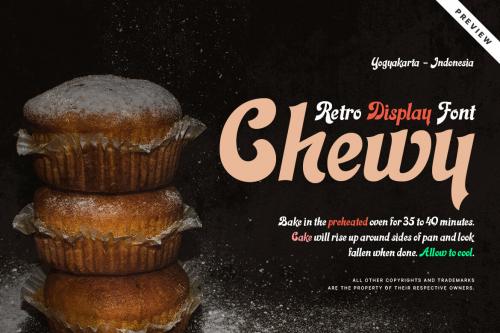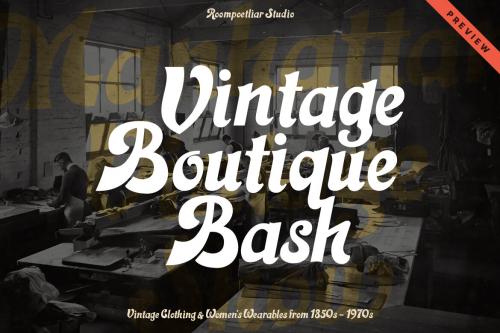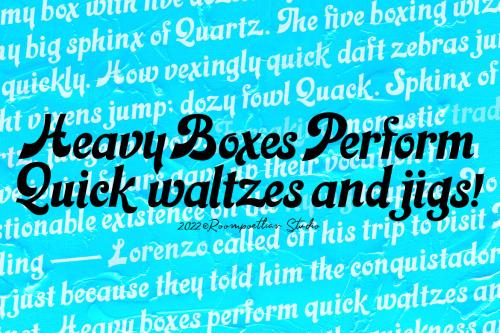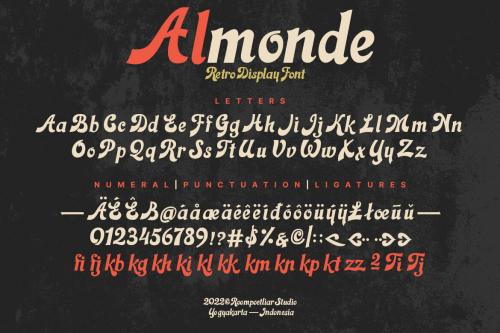
Deeezy - Almonde Retro Font
Almonde Font is an elegant and stunning retro display font. It features a vintage style and will add a unique feel to your upcoming projects. Get inspired by its authentic feel and use it to create gorgeous event promotions, beautiful logo art, eye-catching social media posts, and elegant greeting cards.